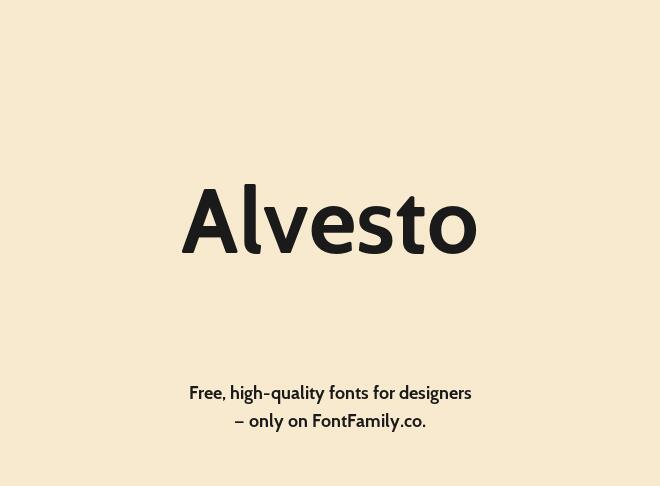
Alvesto Font
Alvesto Font is an exquisite, modern, and geometric typeface that boasts a minimal yet elegant design. Its sleek lines and sharp edges make it an ideal choice for professional use, particularly for logo design, branding, website headers, business cards, and more. This font's clean, straightforward yet sophisticated style can be compared to the likes of Gotham and Proxima Nova, but with its own unique twist. Alvesto Font stands out with its well-balanced, consistent characters that offer a high level of readability. Despite its modern feel, it exudes a timeless elegance that makes it a versatile choice for a wide range of design projects. Alvesto Font is free for personal use, making it a great choice for designers who want to add a touch of modern elegance to their work.